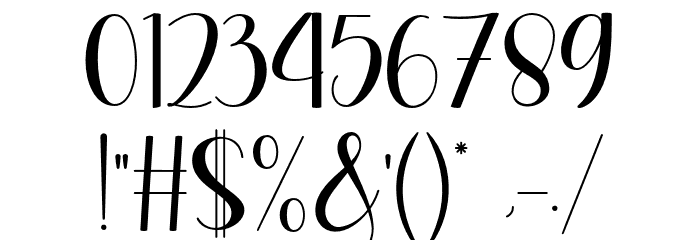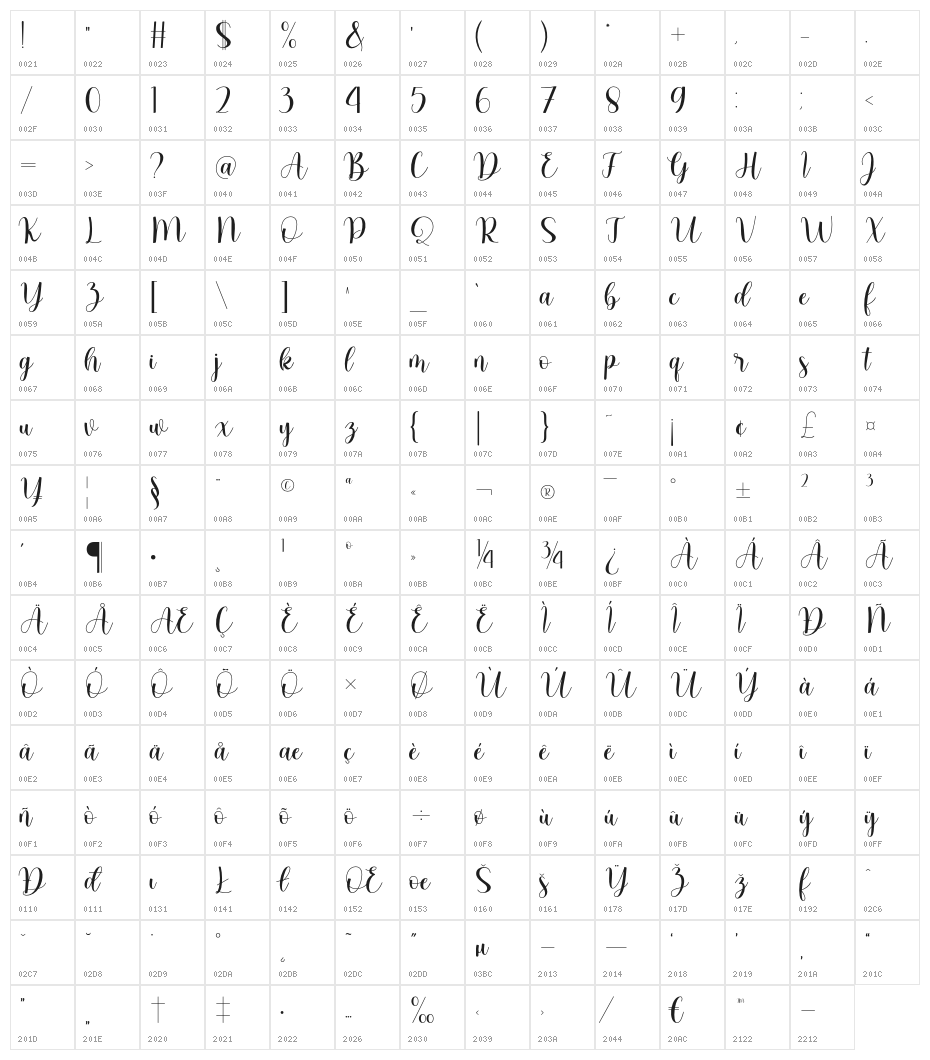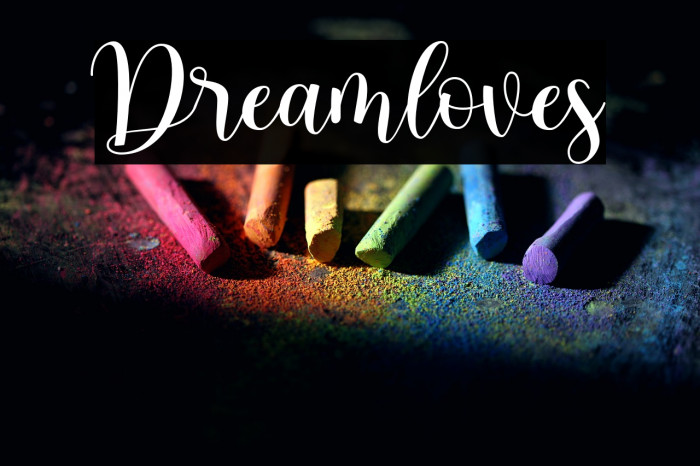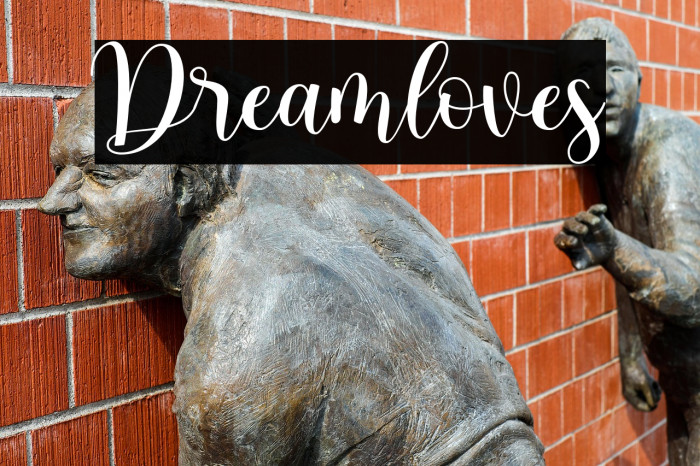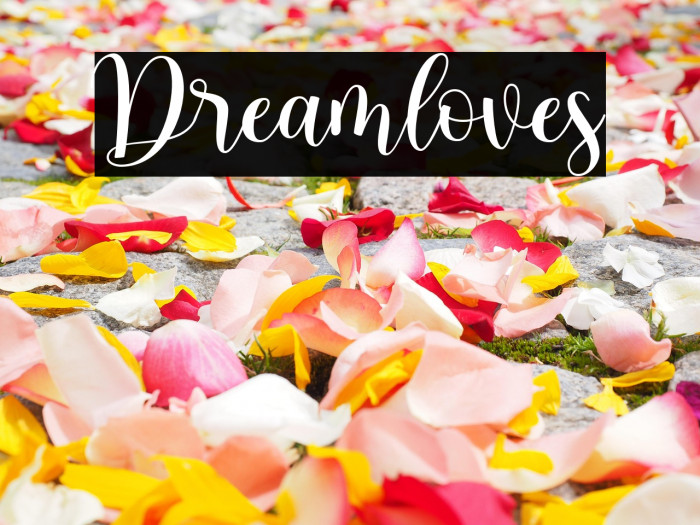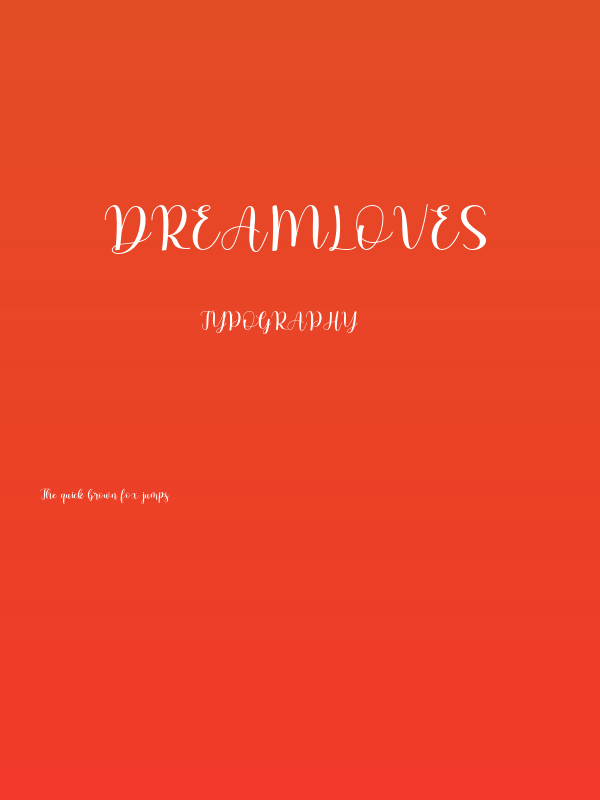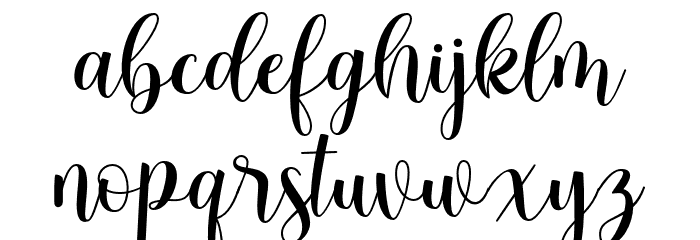
Dreamloves Font
Dreamloves Description
This font features an elegant and flowing script style, characterized by its smooth, cursive strokes and graceful curves. The uppercase letters are particularly ornate, with sweeping lines and loops that convey a sense of sophistication and fluidity. The lowercase letters maintain a consistent style, offering a harmonious blend of readability and artistic flair. Numbers and special characters are crafted with the same attention to detail, ensuring a cohesive look across all text elements. The overall appearance is both stylish and versatile, making it suitable for a variety of design applications.